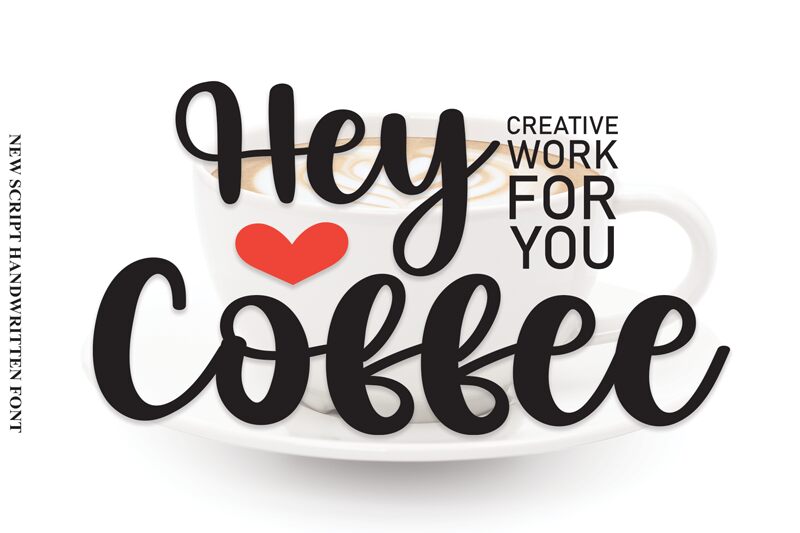
Hey Coffee
Hey Coffee, a bold and smooth brush font designed by Scratchones, adds a touch of creativity and personality to any project. With its lively strokes and bold weight, this font is perfect for branding materials, such as logos and packaging designs.
Its unique style also makes it suitable for social media graphics, blog headers, and even coffee shop menus. Embrace the warm and inviting vibe of Hey Coffee to captivate your audience and bring your projects to life with a caffeinated flair.